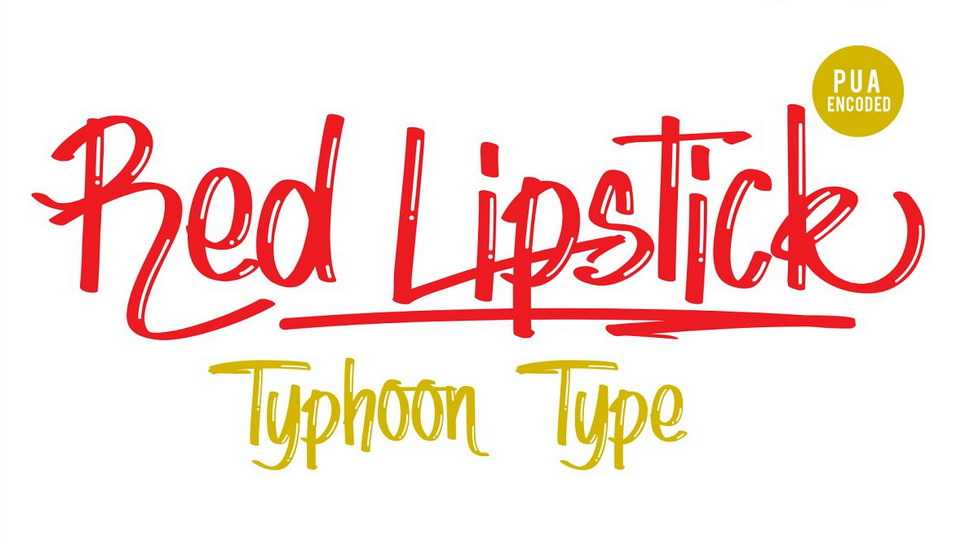
Download Red Lipstick font, a stylish handwritten script with trendy look. Red Lipstick font is suitable for logos, social media, advertising, product packaging, clothing, social media & greeting cards.
Designer: TyphoonType